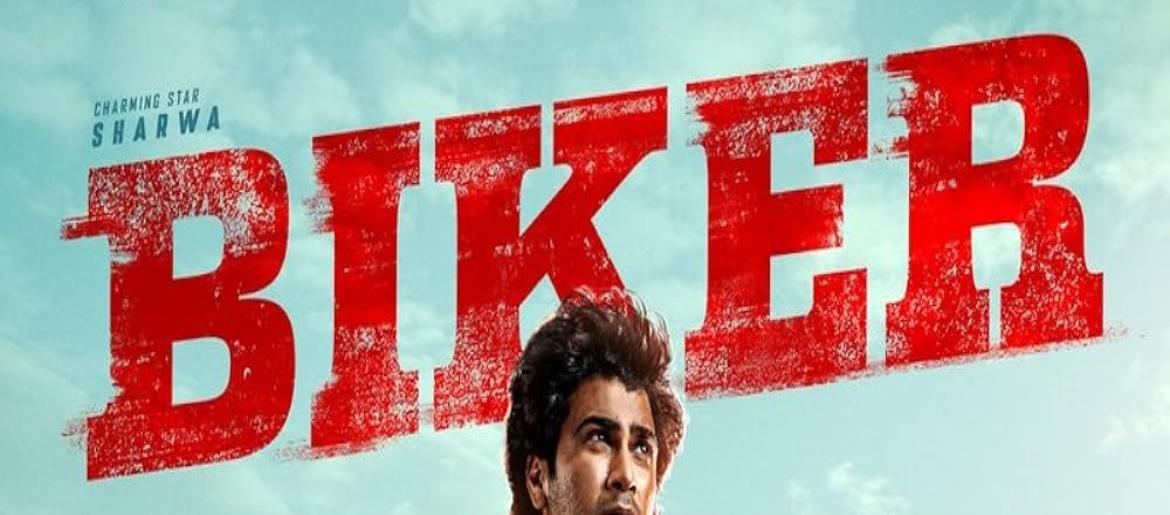
Biker Font
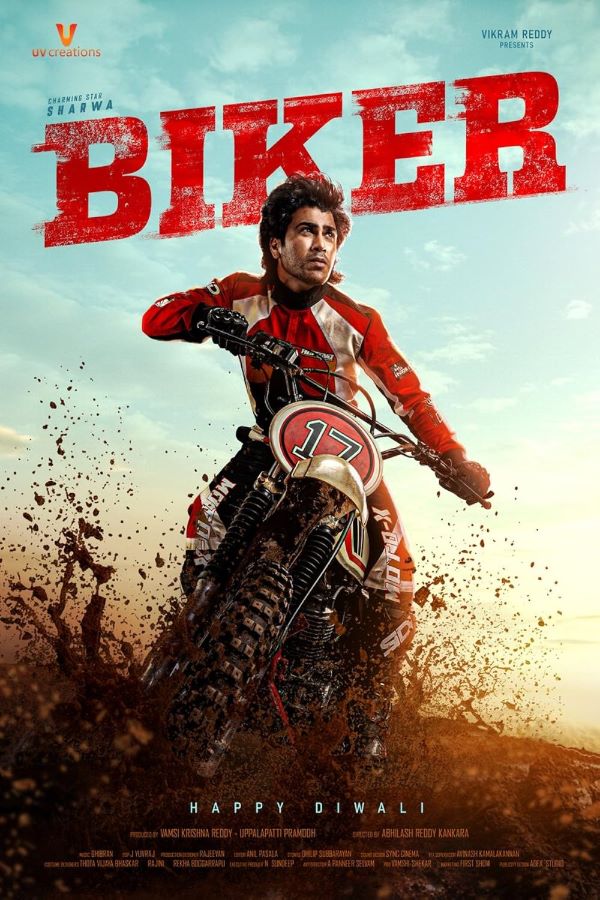
The Biker Font used in the movie’s title design is likely a custom-designed typeface, created to match the film’s gritty and rebellious tone. The lettering features a bold slab-serif style with heavy strokes, strong serifs, and a rugged structure that creates a tough, aggressive, and vintage-inspired visual identity. Because the original font is custom, it is not publicly available. However, a close commercial alternative is Rude Slab SemiWide Black, while a free alternative like Alfa Slab One Regular offers a similar bold and impactful look, making them great choices for fan art and design projects.
About Biker
Biker is a film centered around the raw and intense world of motorcycle culture. The story explores themes of freedom, loyalty, and rebellion as characters navigate life on the road and the challenges that come with it. With a gritty atmosphere and strong visual style, the film uses bold typography to reinforce its rugged and high-energy identity across promotional materials.